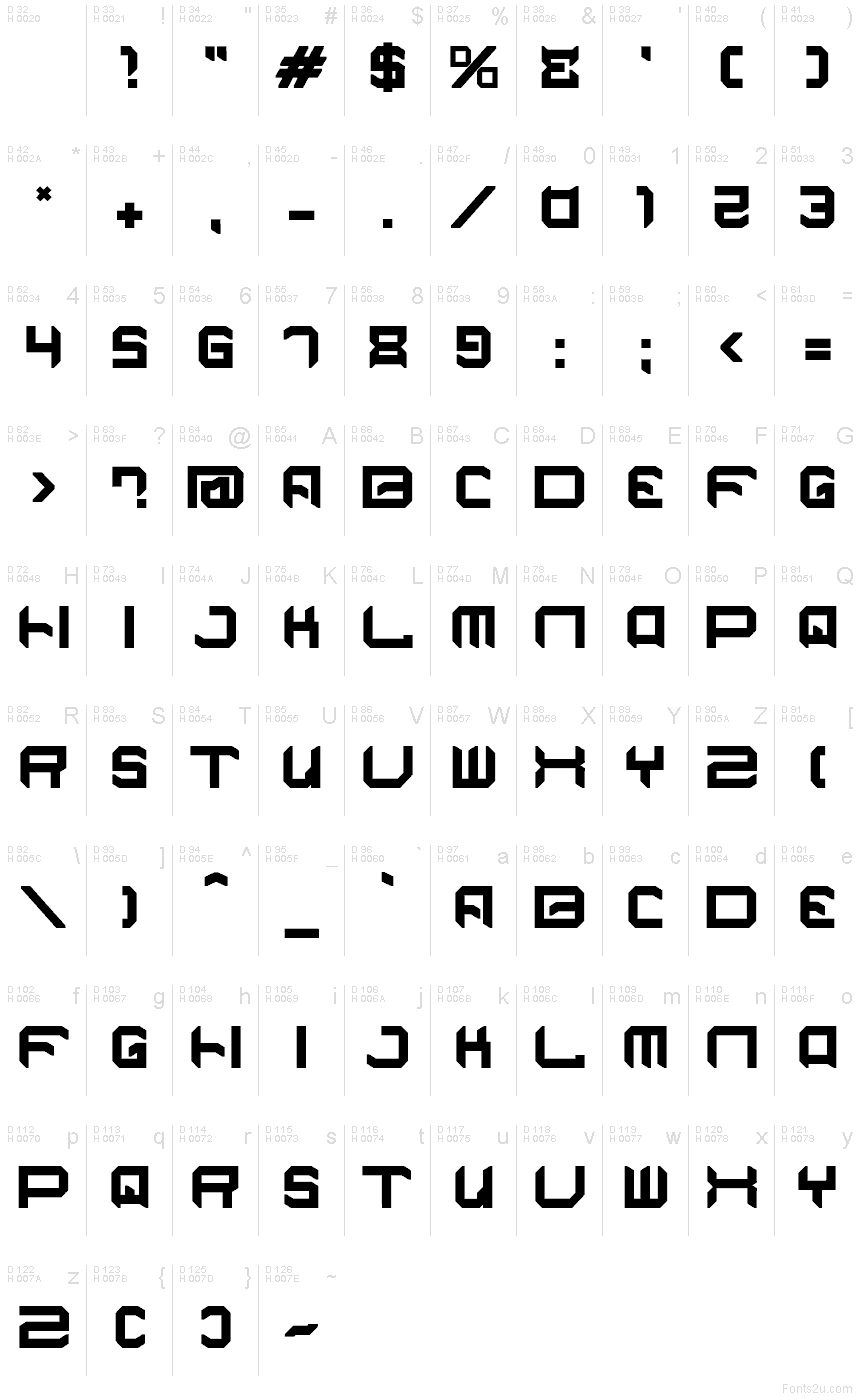
Vandroit
Vandroit font by Dhabee Studio is a free futuristic display typeface that looks like it was cut from solid metal with a laser. Its bold, squared shapes and tight, blocky rhythm create a strong grid-like presence, while the carved-out counters and sharp corners give each letter a mechanical, sci-fi edge. The result feels both engineered and aggressive, like a logo stamped on the side of a starship or a high-tech gadget.
Using Vandroit in your work instantly pushes designs into a cyber, gaming, or tech-forward space, making this free font a natural fit for esports branding, sci-fi posters, UI titles, app splash screens, music covers, and event flyers. It shines at large sizes where its chunky geometry and negative spaces can breathe. Pair Vandroit with a clean, light geometric sans for body text to keep layouts readable while letting its futuristic personality stay in the spotlight.